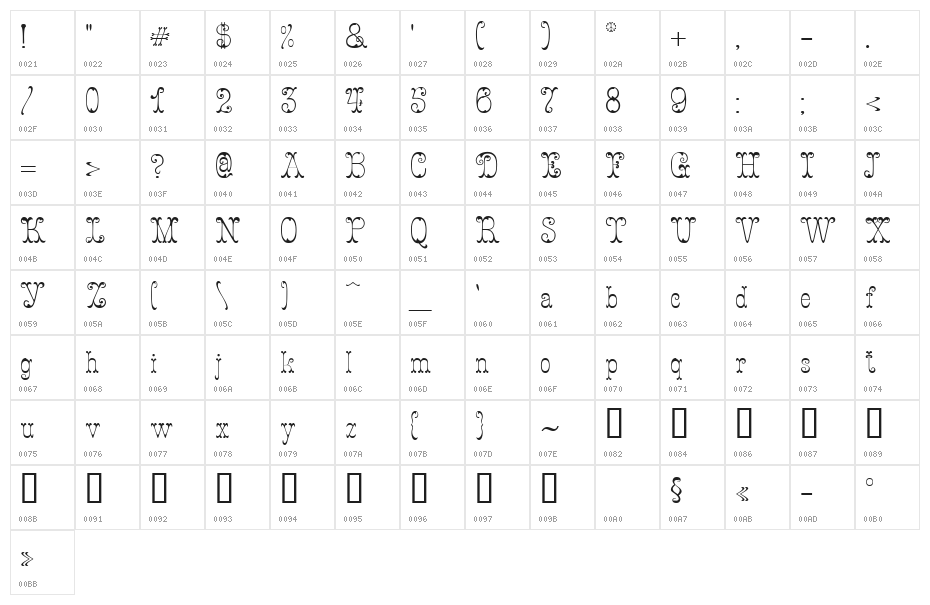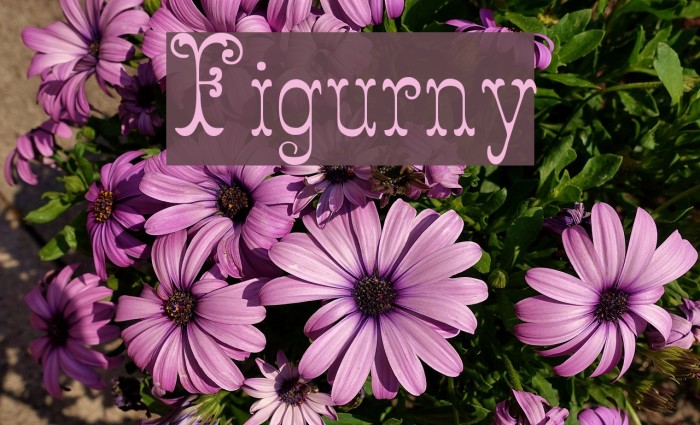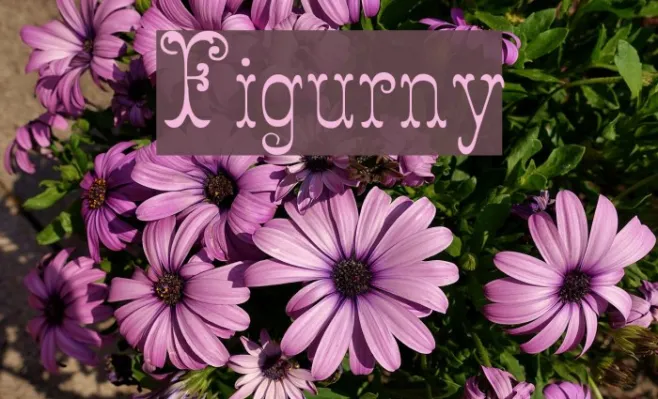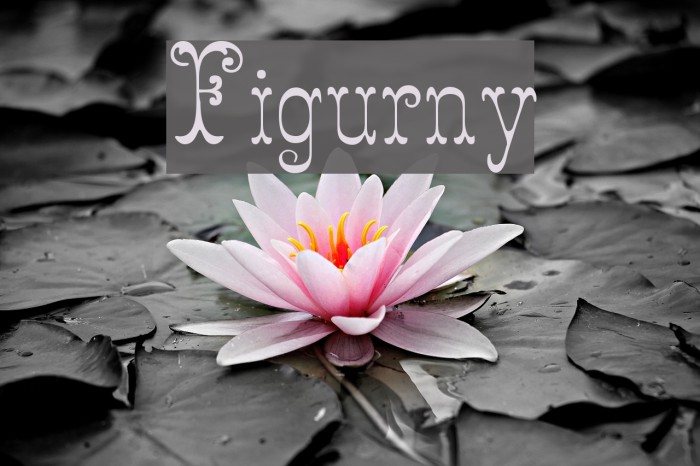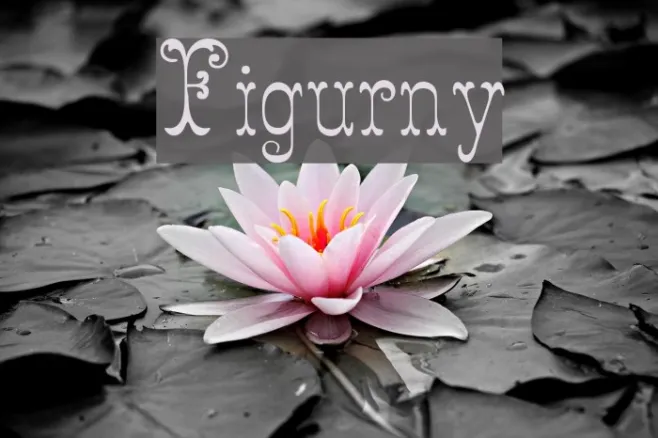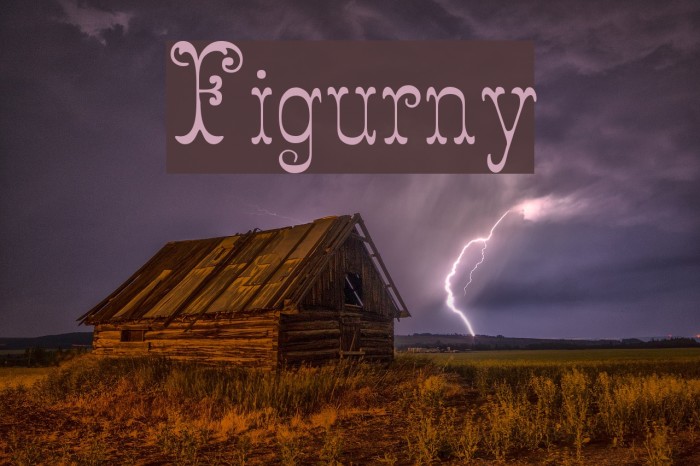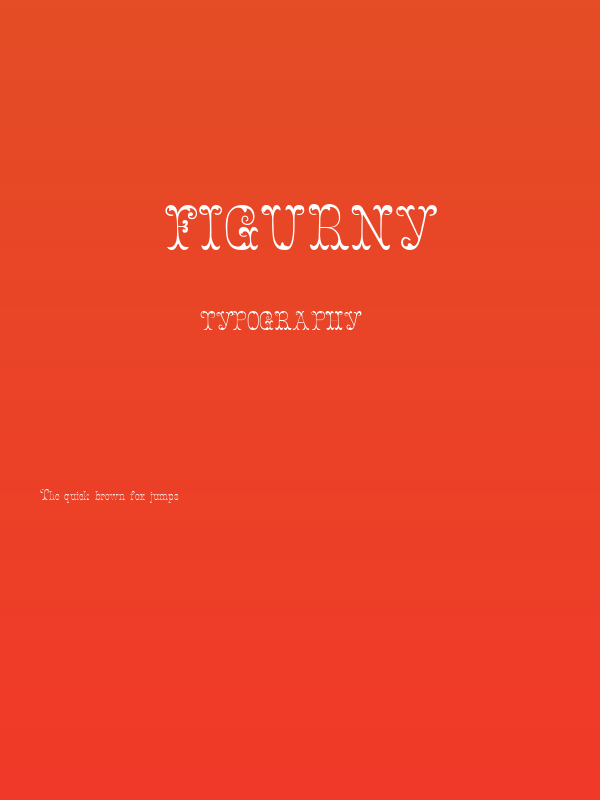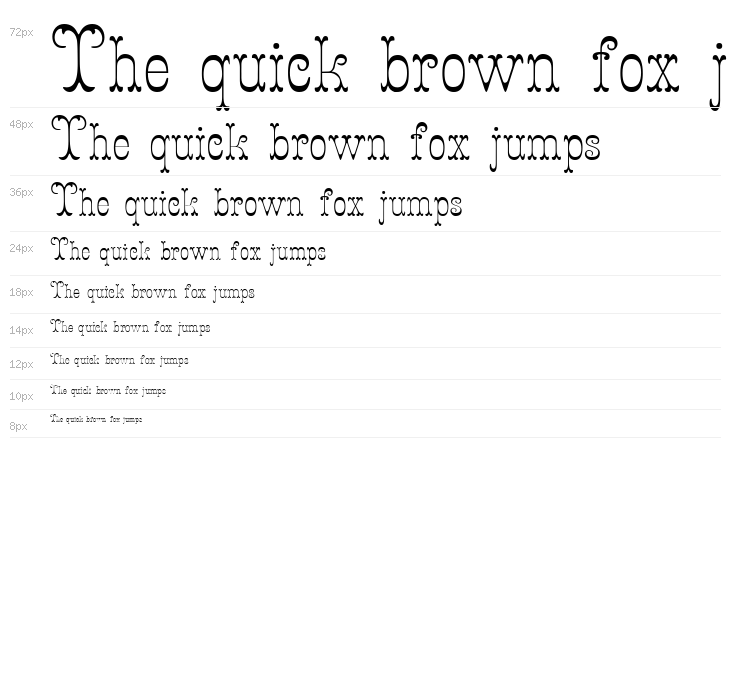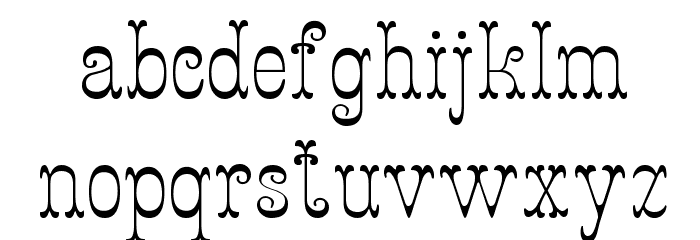
Figurny Font
Figurny Description
This font features a whimsical and decorative style, characterized by its playful curls and loops at the ends of each letter. The uppercase letters are bold and ornate, with intricate detailing that adds a touch of elegance and flair. The lowercase letters maintain a consistent style, offering a harmonious blend of readability and artistic expression. Numbers and special characters follow the same decorative theme, making them visually cohesive with the alphabet. This font's unique design makes it ideal for creative projects that require a touch of personality and charm.